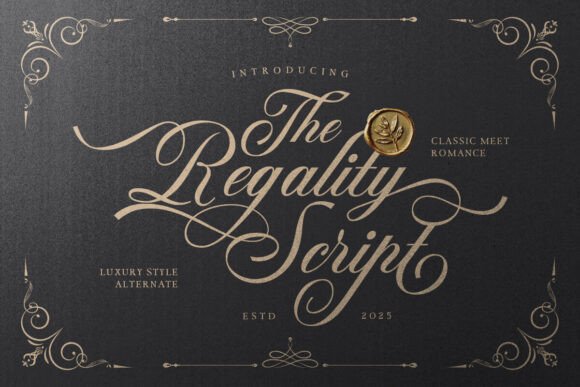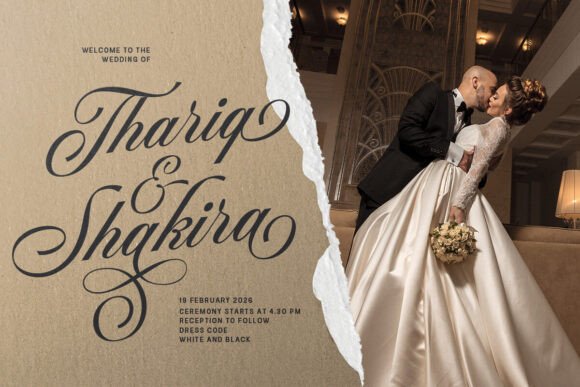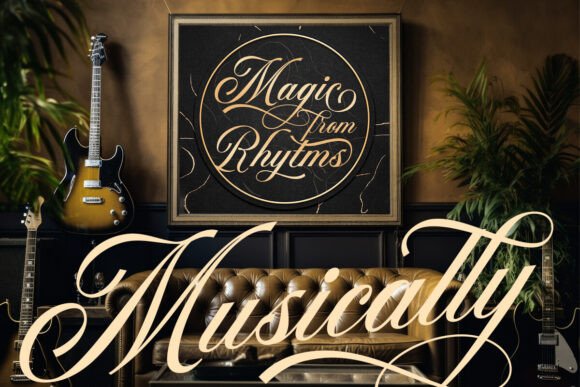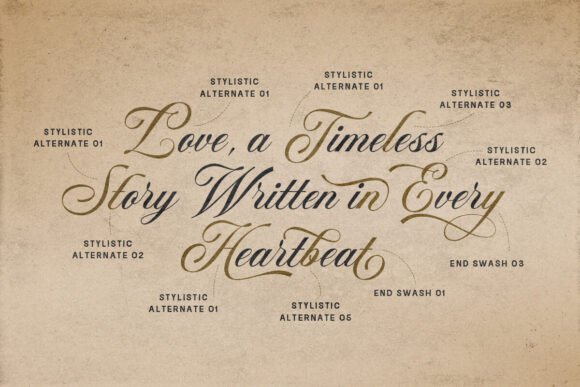
Regality Font
About the Regality Font
The Regality Font is here to transform your projects with its distinctive character and style. Introducing Regality — a luxury script font designed to bring romance and sophistication to your designs. Packed with stylish alternates, Regality lets you create a modern, refined look with ease. Ideal for wedding invitations, branding, quotes, and more. This versatile font also supports multiple languages, making it perfect for global appeal.
Regality’s elegant, flowing forms make it a superb choice for headlines, logos, and short-form text within branding materials and high-end packaging. Its luxurious feel is perfect for projects emphasizing sophistication and romance, such as wedding stationery or luxury goods advertising. However, its decorative nature makes it less suitable for body copy or UI elements where readability is paramount.
Pairing Regality with a clean sans-serif like Montserrat for body text creates a sophisticated contrast, balancing the script’s flourish with modern clarity. For a more traditional feel, a serif like Playfair Display offers a harmonious pairing, enhancing the overall sense of classic elegance. Avoid pairing it with other highly decorative fonts, as this can lead to visual clutter.
Regality’s personality is undeniably elegant and refined, conveying a sense of timeless luxury. Its versatility allows it to be used in a variety of contexts, but maintaining a balanced design is key to maximizing its impact.
Regality Font Usage Examples
Regality Font Example